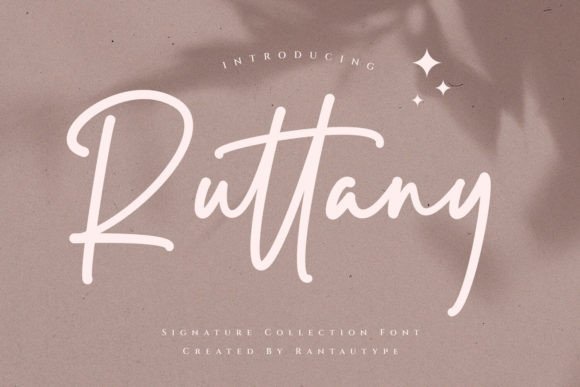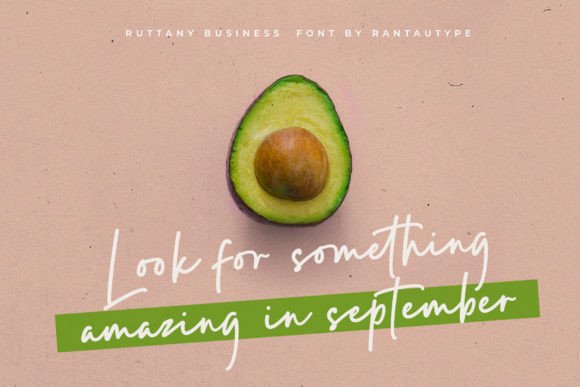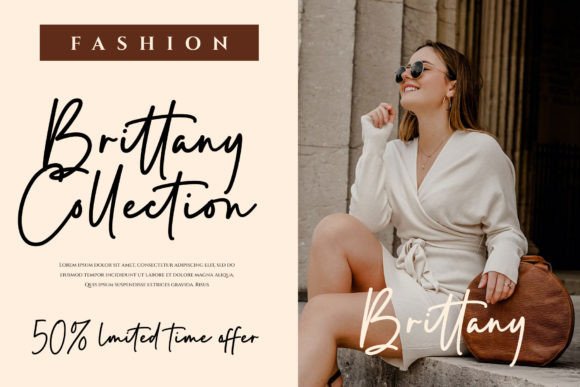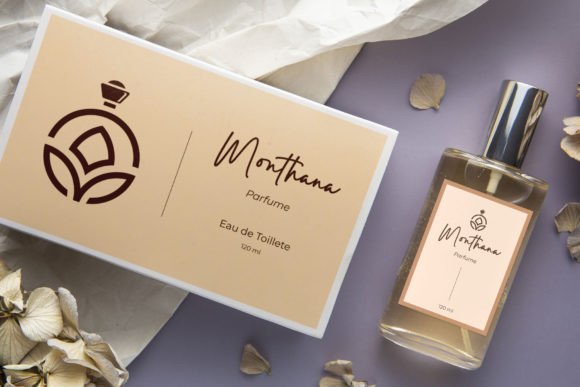
Ruttany Font: Elegant Signature Font for Modern Logo Design
About the Ruttany Font
Introducing the Ruttany Font, a beautifully crafted typeface designed to elevate your creative projects. Ruttany is business signature font which can be interpreted professional with stylish and soft curve. We keep this font looks modern, minimalist, elegant, readable, stylish, catchy and easy to use. Ruttany comes with ligature, alternate and multilingual support.
Ruttany is a beautiful choice for any creative endeavor, chic, lifestyle design such as logos, title, watermark on photography, cover, branding, display and magazine, wedding event, quotes, album cover, business card, corporate, business project and many other design project.
Ruttany Font Example